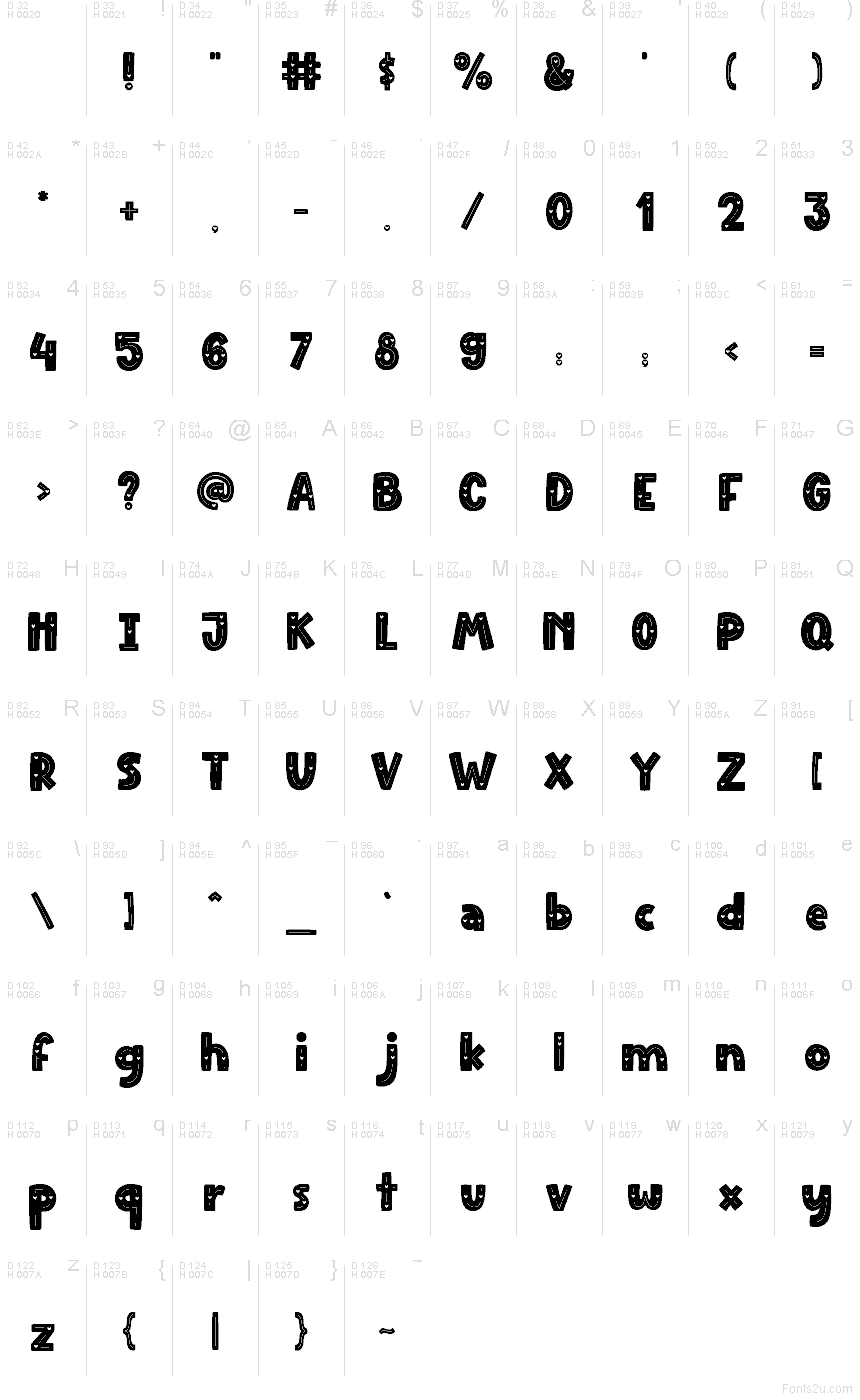
CUPID ANGEL
Cupid Angel font by Mozatype is a free decorative valentine typeface that turns every word into a love note. Chunky, rounded letters are packed with cut-out hearts and tiny sparkles, giving a bold, inky look that still feels soft and friendly. The tight rhythm of the shapes keeps even busy headlines readable, so you can go all-in on the cute factor without sacrificing clarity.
Using Cupid Angel, you can instantly dress up Valentine cards, party invitations, classroom decor, candy packaging, social posts, stickers, and kids’ crafts. This free font shines when set large and in bright colors, then paired with a simple sans serif for body text to keep things sweet but balanced.